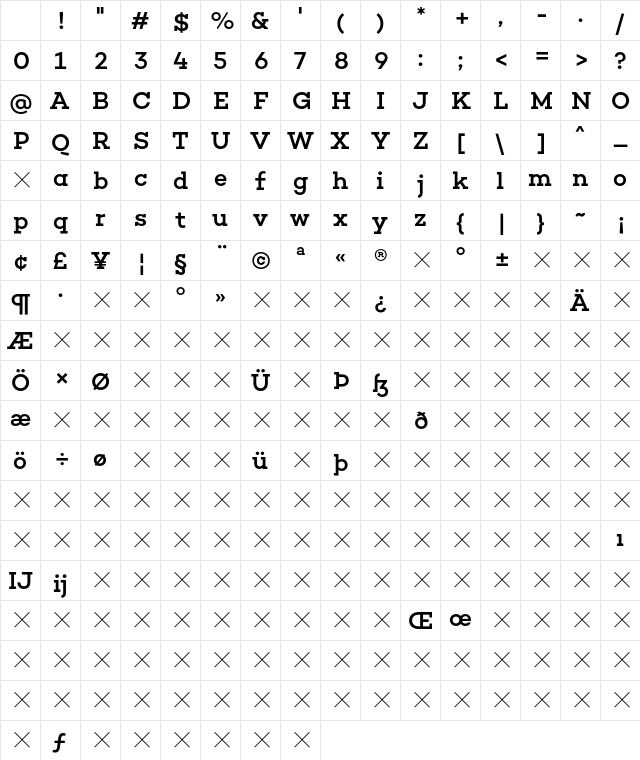
Complete Choplin Medium-DEMO glyph index. Displaying only characters natively supported by Choplin Medium-DEMO font.
Choplin is a composed and adaptable typeface that performs quietly and consistently across a wide range of design contexts.